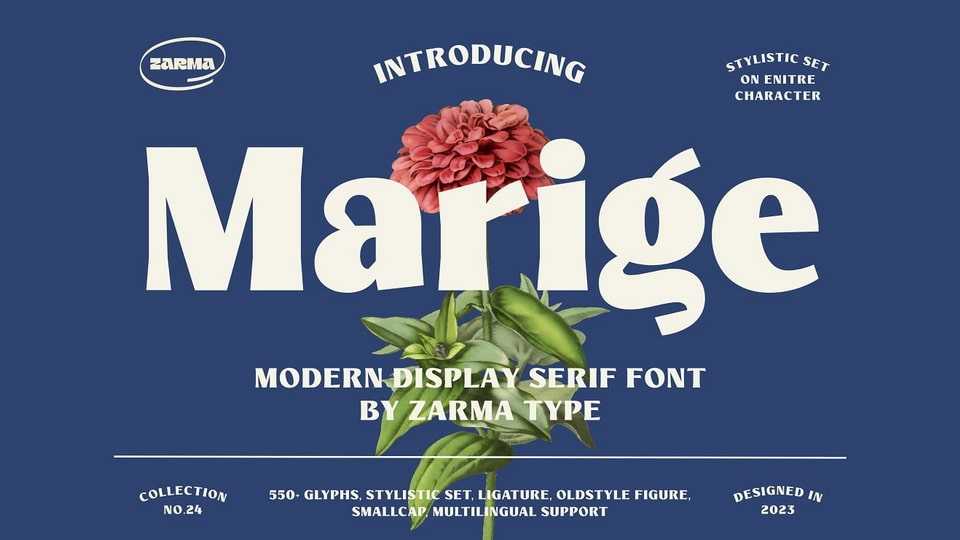
Download Marige, a bold, high contrast typeface that stands out and exudes strength and confidence. Marige is ideal for any aspect of design, such as logos, headlines, posters, and so on, and will give your projects a classic yet contemporary look.
Designer: Zarma Type Foundry